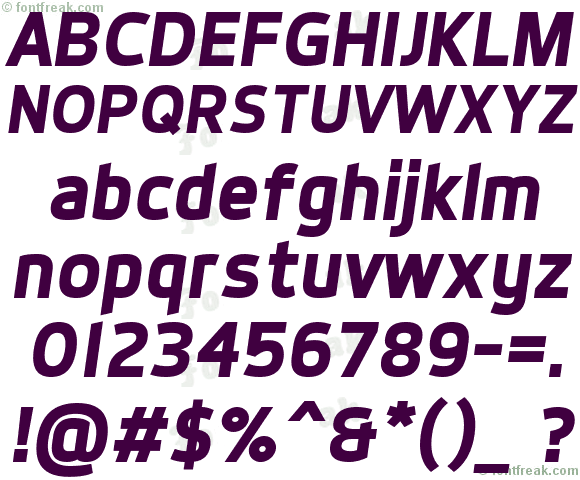
Dyno Italic
About Dyno Italic
Introducing the Dyno Italic font by Jayvee Enaguas, a striking typeface that falls within the category of display fonts. Released between 2009 and 2012, this font showcases a unique blend of modernity and flair, making it an excellent choice for a variety of creative projects. The Dyno Italic features a sleek, slanted design with a moderate stroke weight, providing a balance between legibility and style. The contrast in its letterforms creates an engaging visual rhythm, while the generous spacing enhances readability, making it suitable for both headlines and body text.
The versatility of the Dyno Italic font makes it ideal for numerous applications. It shines in settings such as movie posters, where its dynamic presence can capture attention and convey excitement. Additionally, it lends itself well to restaurant menus, adding a touch of elegance that can elevate the dining experience. Graphic designers will also find it perfect for branding materials, as it embodies a contemporary aesthetic that can resonate with modern audiences. Content creators can utilize this font in social media graphics, ensuring their posts stand out in a crowded digital landscape.
What sets the Dyno Italic font apart is its ability to blend artistic sensibility with practical functionality. Its unique styling and adaptability make it a standout option for anyone seeking to make a bold statement. Don’t miss your chance to elevate your designs with the Dyno Italic font free download, and make your work truly unforgettable.